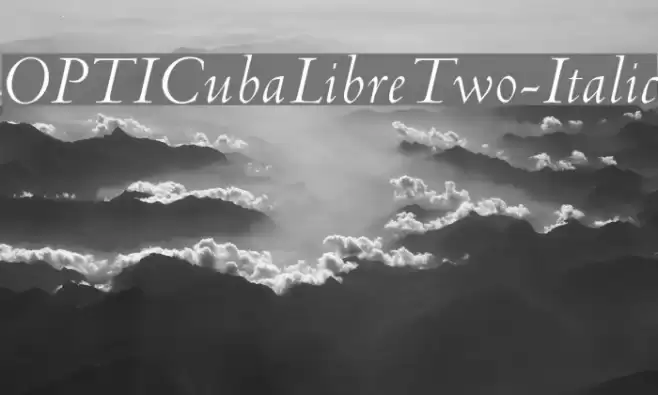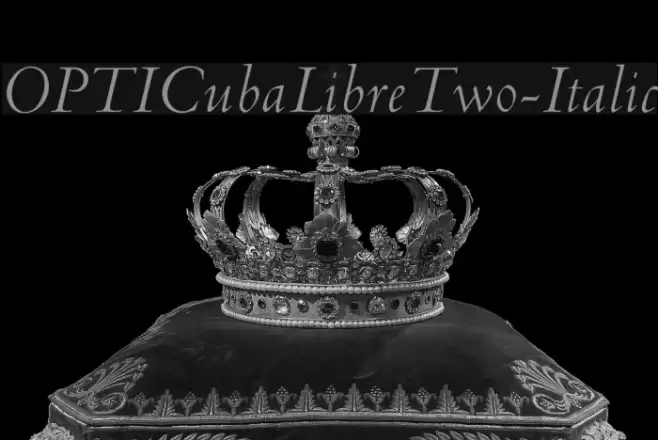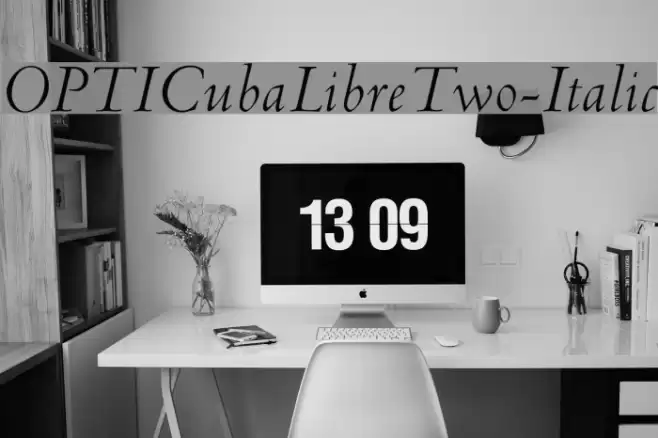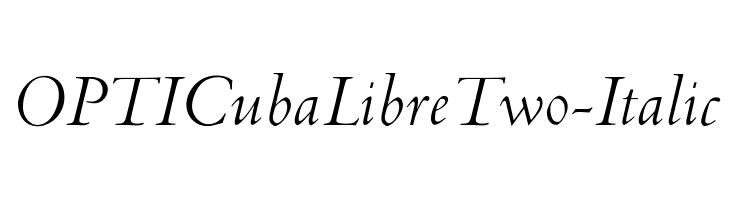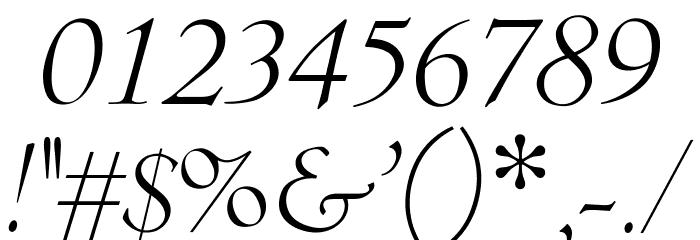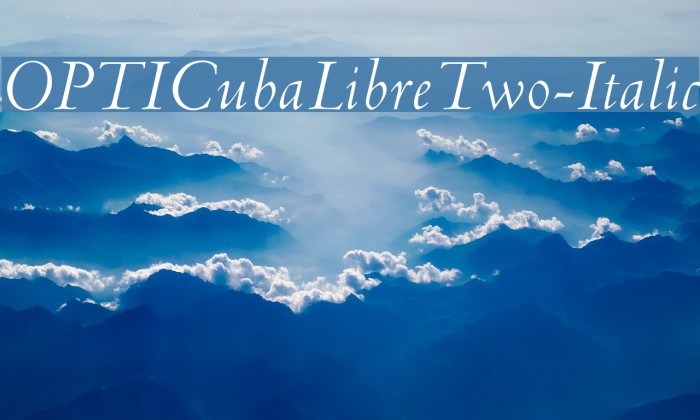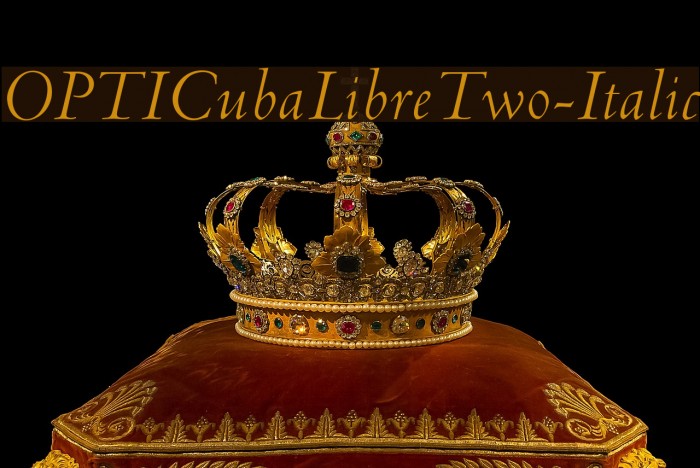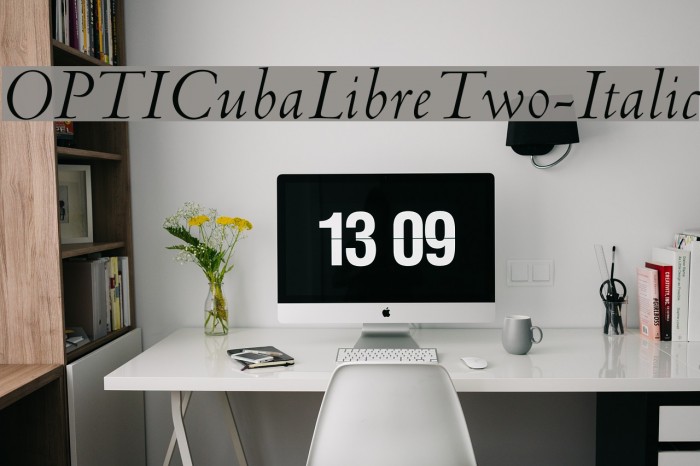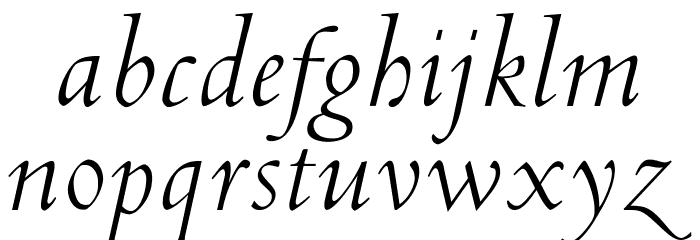
OPTICubaLibreTwo-Italic
This elegant serif font features a classic italic style with a refined and sophisticated appearance. The characters exhibit a graceful slant, enhancing the traditional serif elements with a touch of modernity. The uppercase letters are well-proportioned, while the lowercase letters maintain a consistent flow, making it suitable for both formal and creative applications. The numerals are clear and distinct, ensuring readability. Special characters are thoughtfully designed, adding to the font's versatility. The overall design exudes a timeless charm, making it ideal for projects that require a touch of elegance.
An elegant serif italic font with a refined and sophisticated style.
- Proposed Projects: Ideal for wedding invitations, formal documents, luxury branding, and editorial design.
- Category: Serif
- Overall Style: Classic